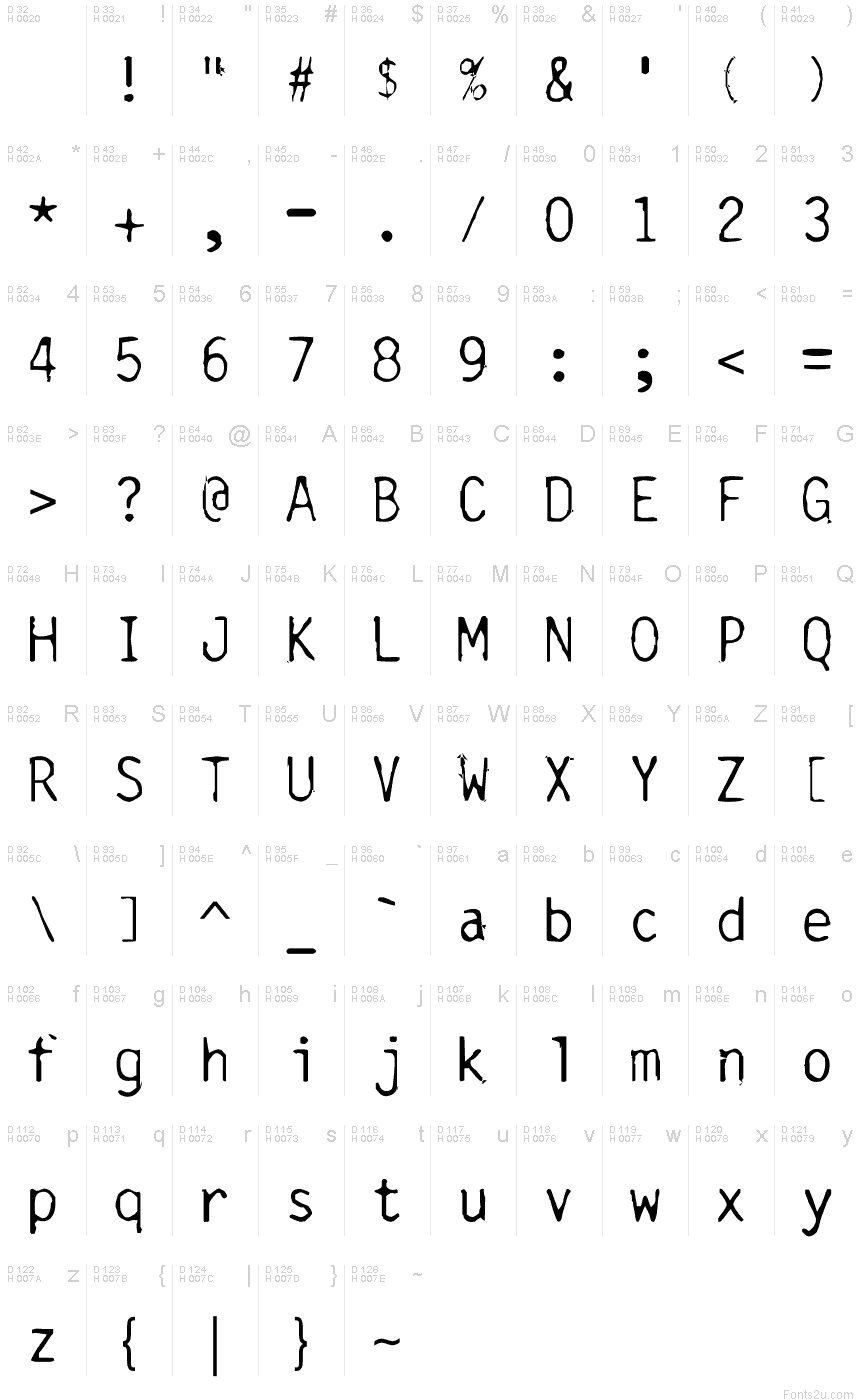
Burned Gothic
Burned Gothic font by Paradox is a free eroded display typeface that looks like it’s been scorched at the edges and left to smolder. Tall, narrow letters wobble just enough to feel human, while the rough, inky outlines give every word a singed, uneasy texture. It stays readable, but there’s a constant sense of smoke and shadow running through the line.
Using Burned Gothic, you can push titles for horror movie posters, haunted house flyers, metal band merch, escape room branding, thriller book covers, or dark game menus into more unsettling territory. This free font works best big, where the grain and erosion show; pair it with a clean geometric sans at smaller sizes to keep layouts sharp and legible.